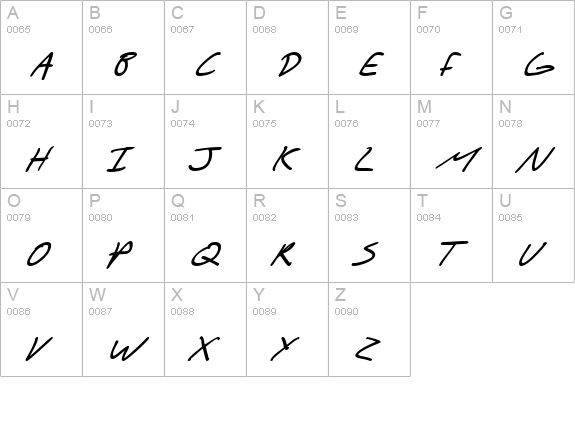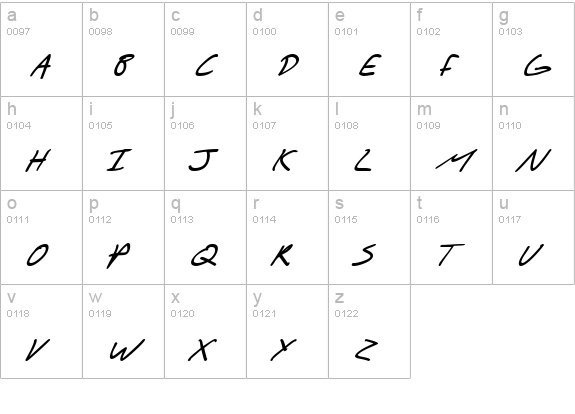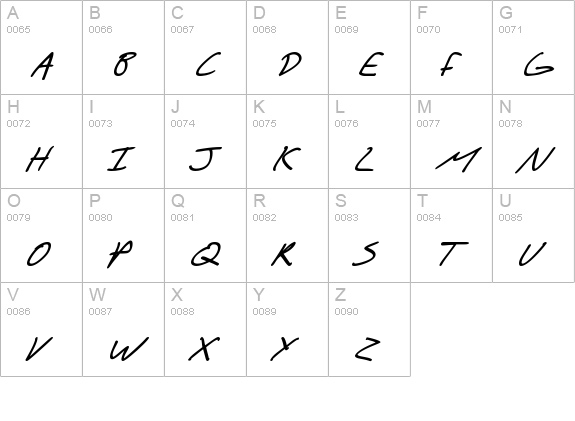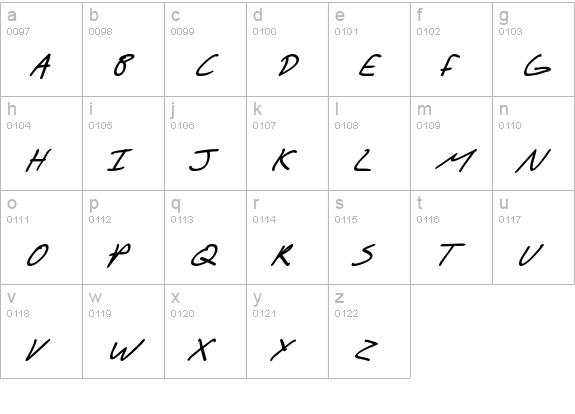
SF Scribbled Sans SC Bold Italic Font Details
SF Scribbled Sans SC Bold Italic is a strong, high-contrast, italic variant in the SF typeface family \xE2\x80\x94 well suited to headlines, attention-grabbing titles, and strong calls-to-action.
SF Scribbled Sans SC Bold Italic is a modern and edgy typeface that adds a creative flair to any design project. With its bold and italicized characters, this font exudes a sense of energy and excitement. The unique hand-drawn scribble effect gives it a distinct and playful look, making it perfect for graphics, logos, headlines, and more. This font is not only visually appealing but also highly versatile. It can be used in a variety of settings, from advertising and branding to social media posts and invitations. Its bold and italicized style adds emphasis and grabs attention, making your message stand out from the crowd. One of the best things about SF Scribbled Sans SC Bold Italic is that it is available for free download at FontsMarket.com. This means that you can easily access and use this font without any cost, making it a great choice for designers on a budget or those who simply want to experiment with a new typeface. Whether you are a professional designer or a hobbyist, SF Scribbled Sans SC Bold Italic is sure to inspire your creativity. Its free availability, coupled with its unique and eye-catching design, makes it a must-have font in your collection. Don't miss out on the opportunity to add this versatile and playful typeface to your toolkit. Download it today at FontsMarket.com and unleash your imagination.